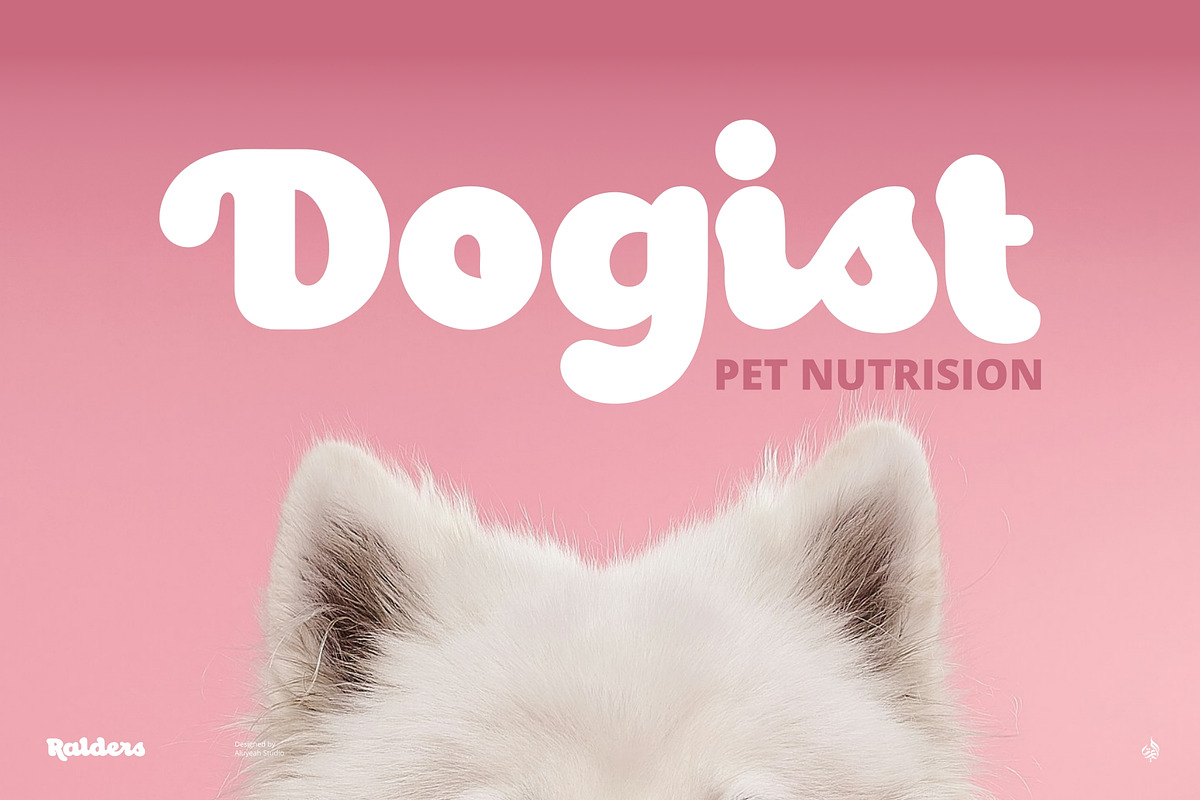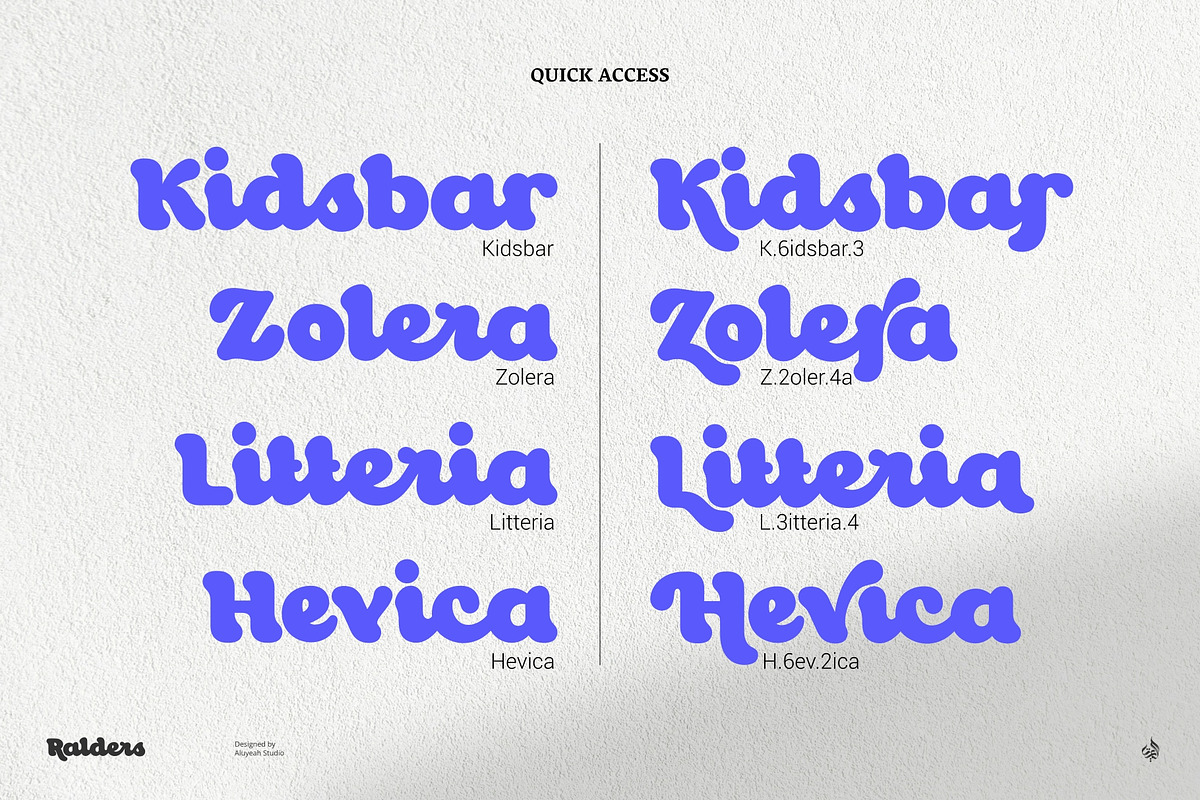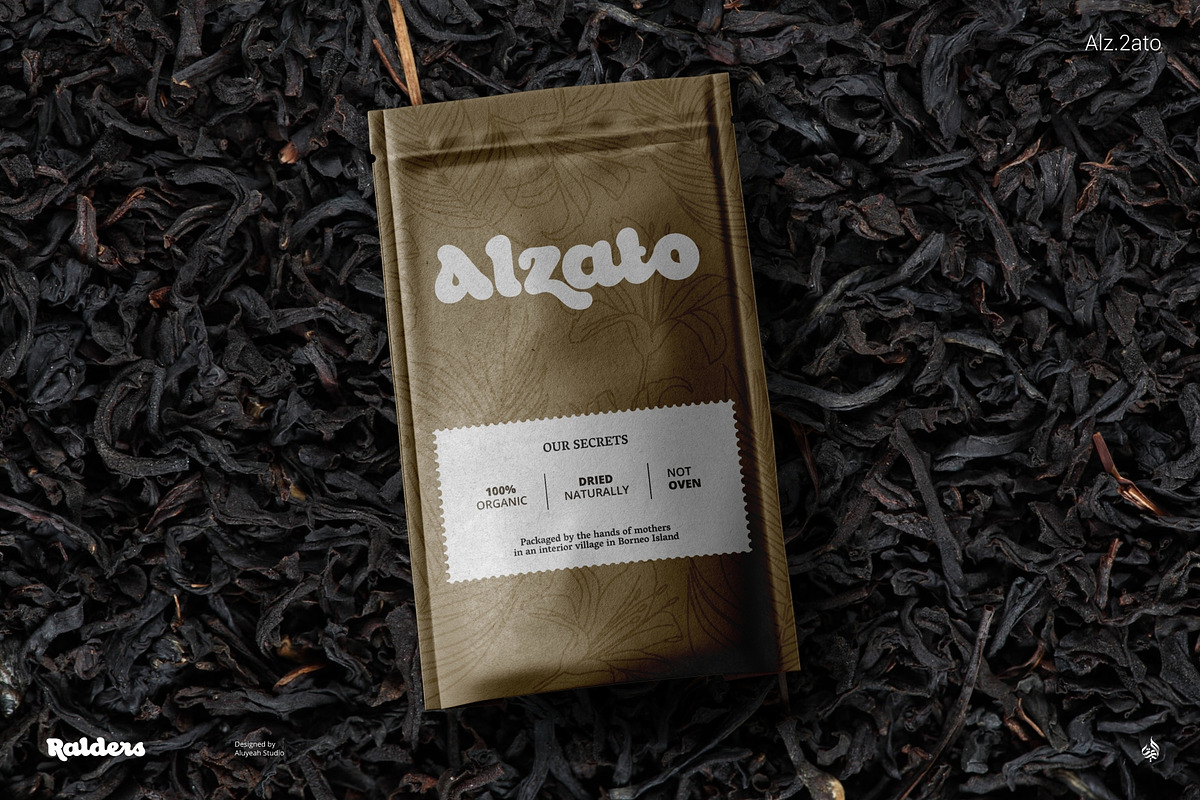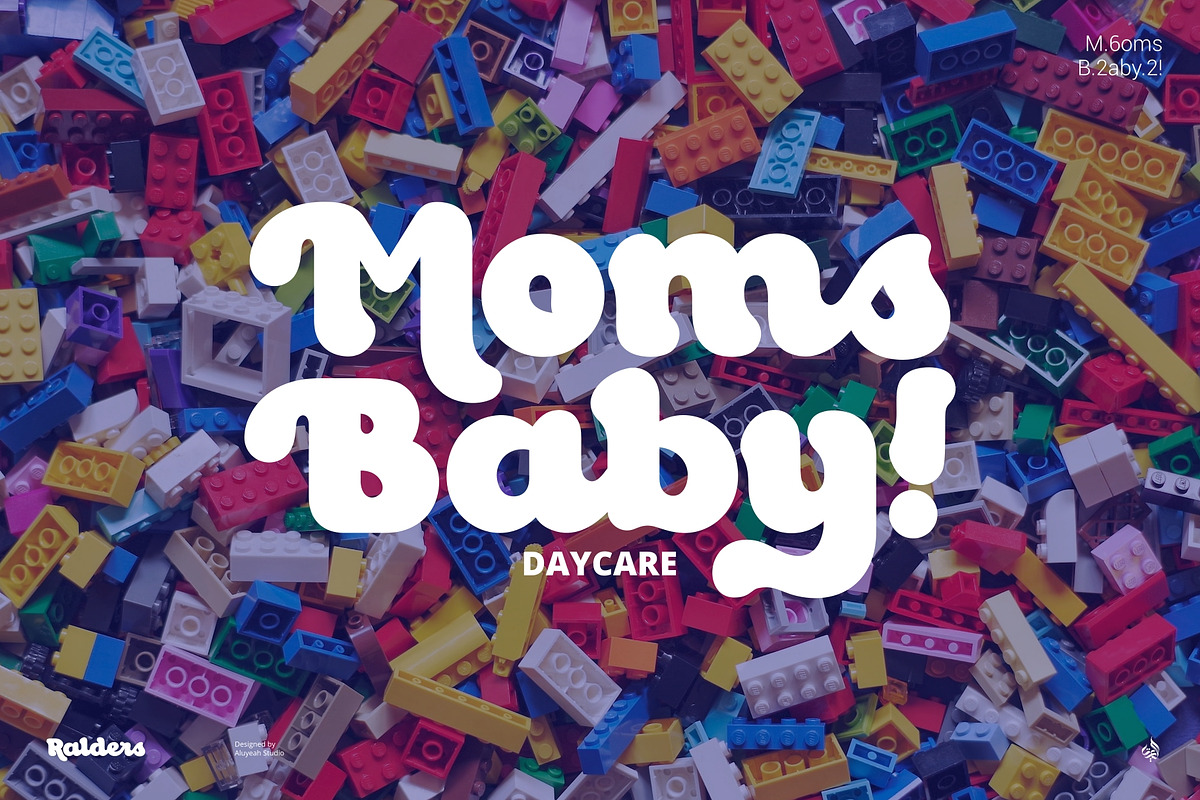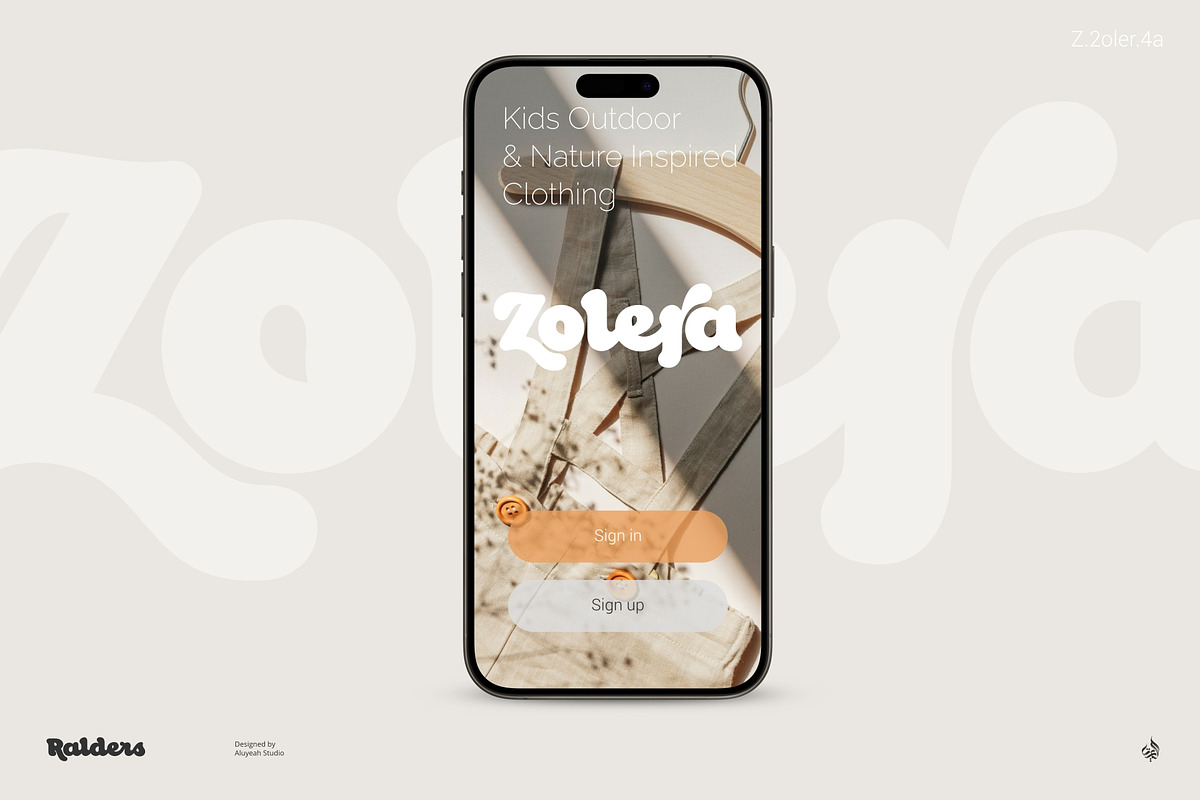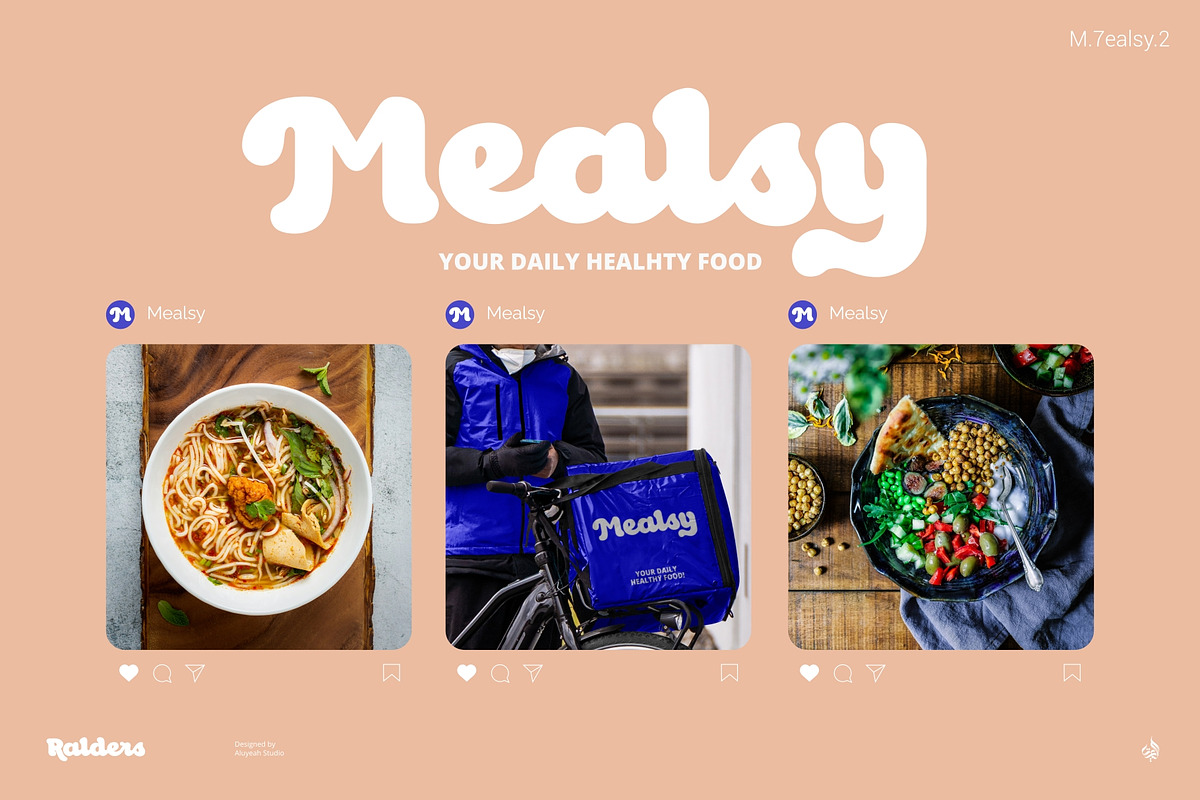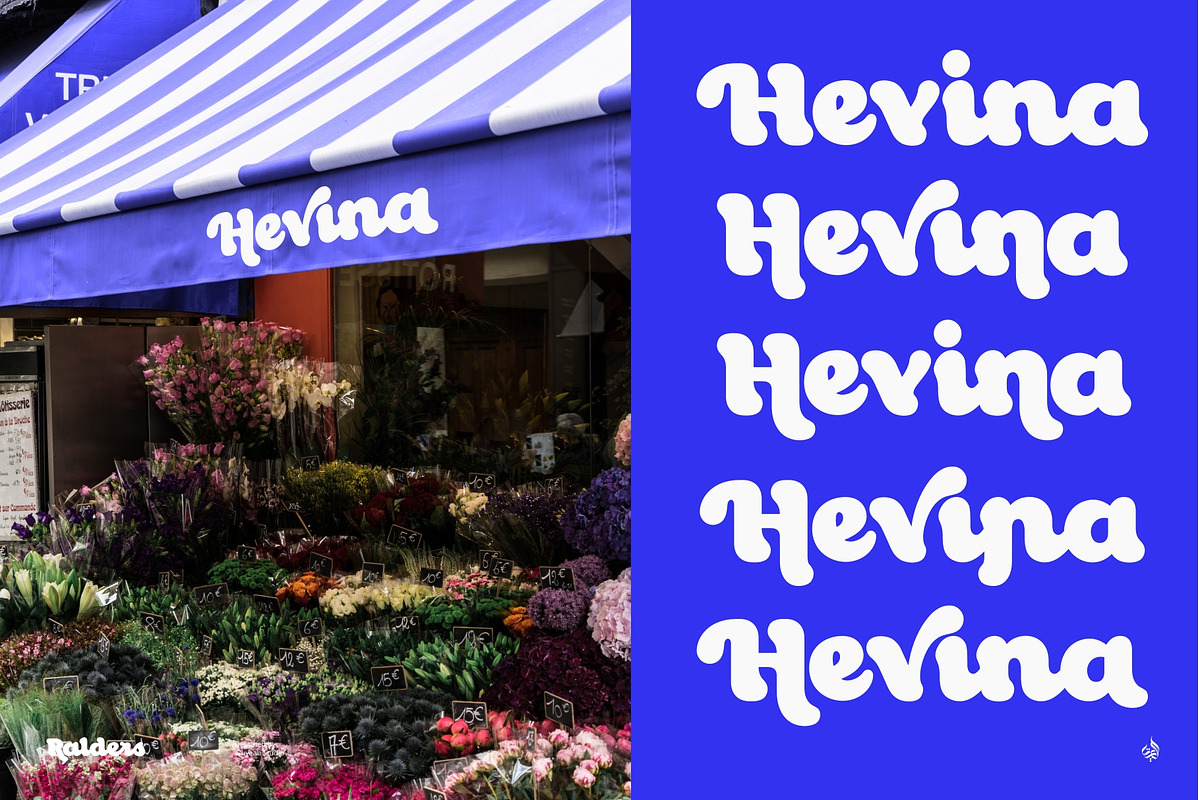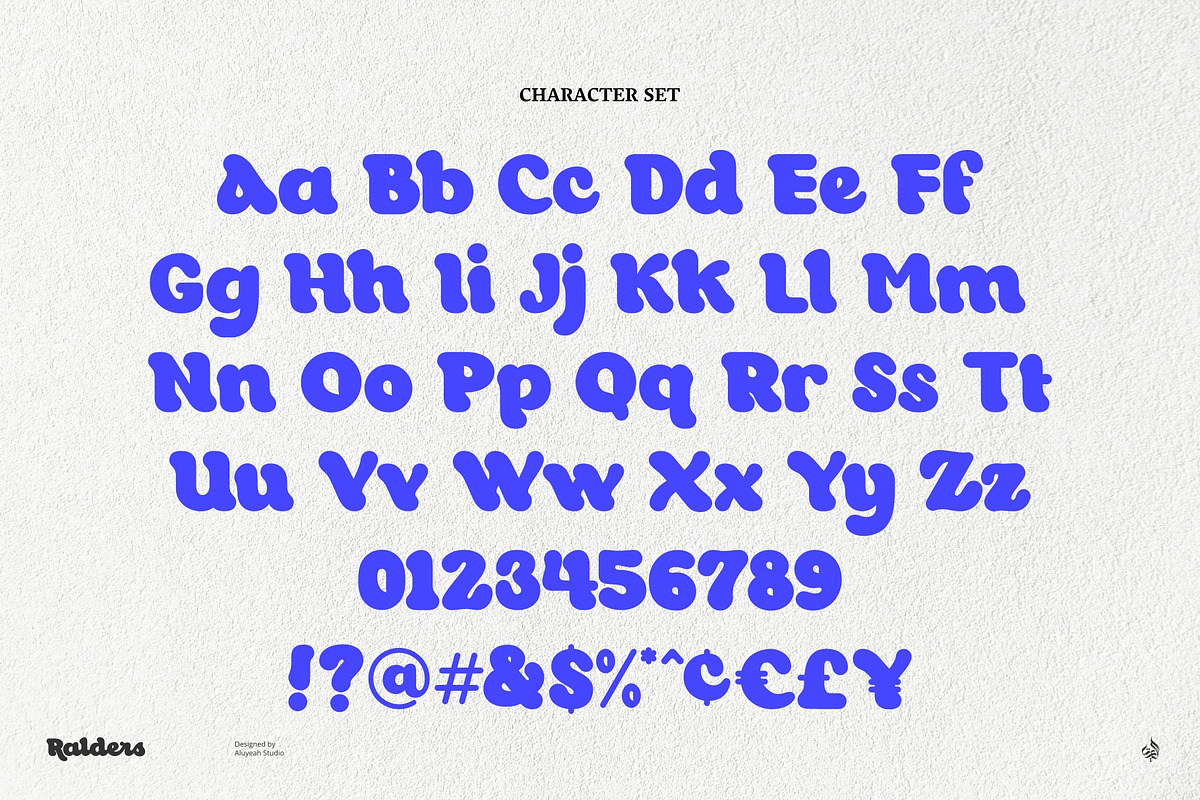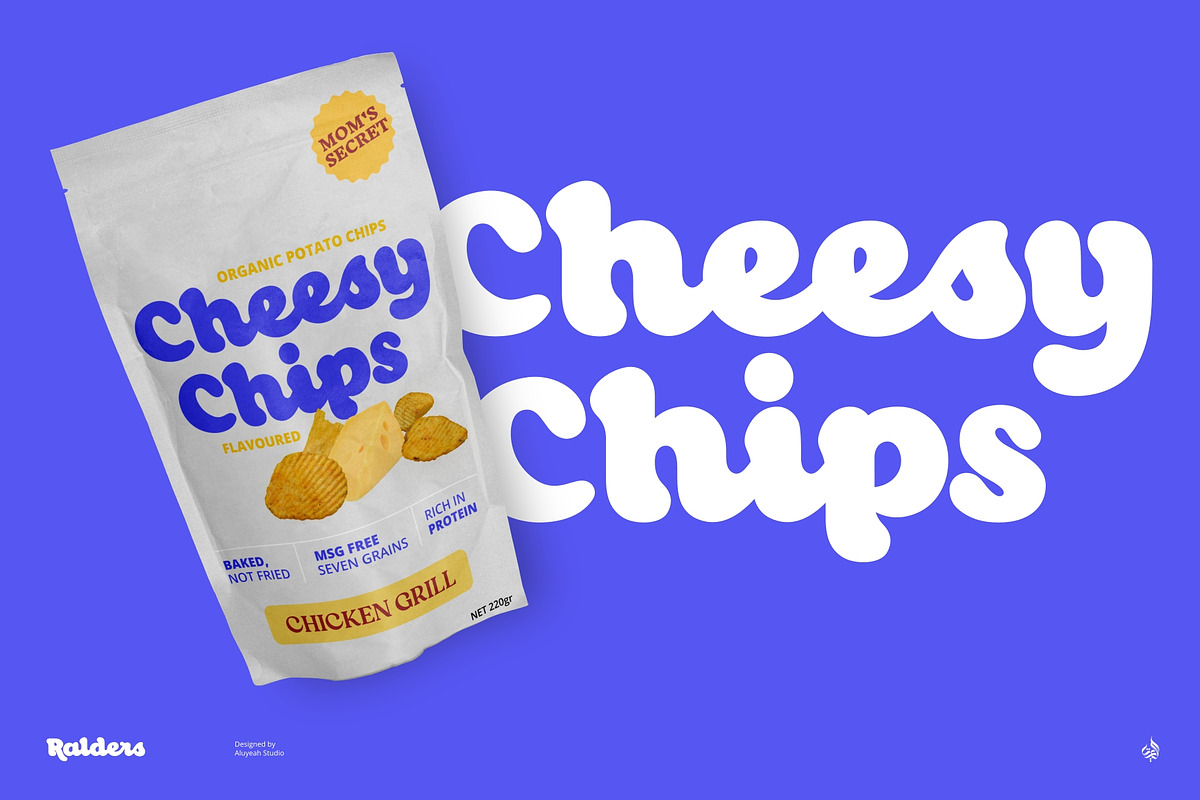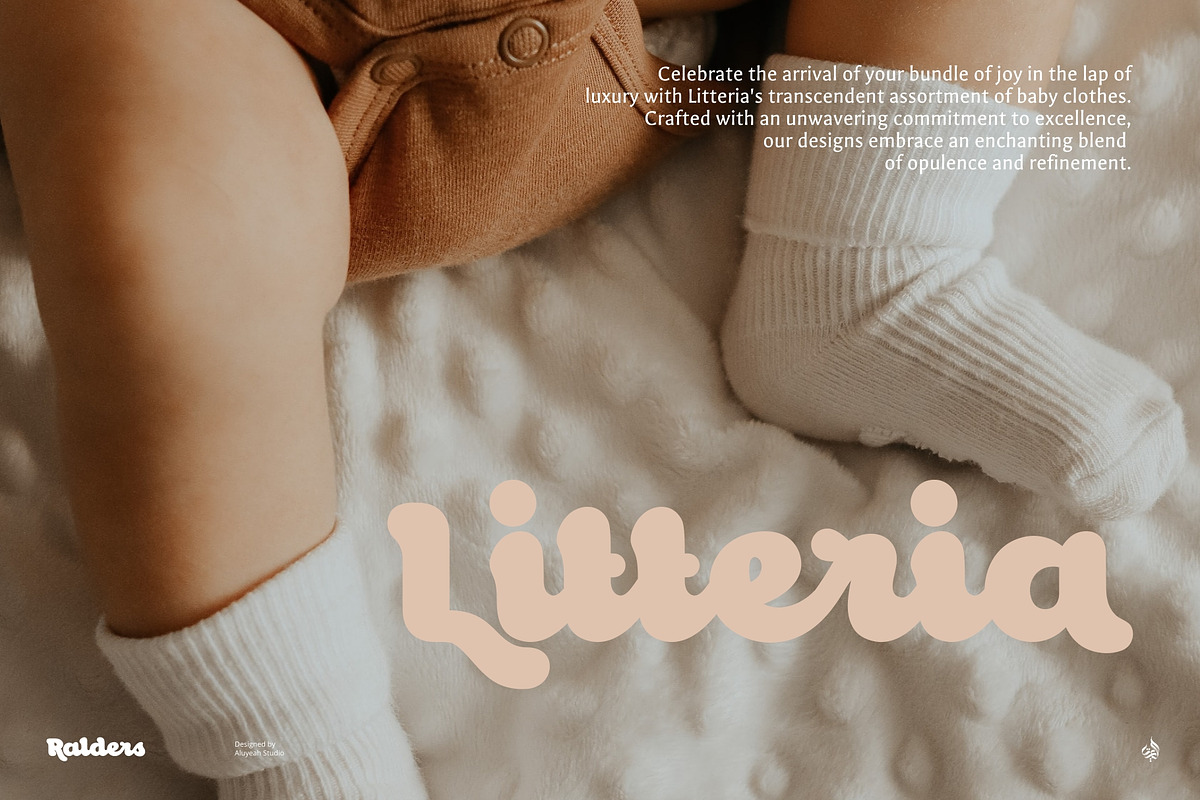
Ralders
Introducing Ralders - a Bold and Playful Semi Cursive Font for Creatives and Beyond!
Unleash your creative side with Ralders - the perfect font for adding a touch of boldness and playfulness to your designs. Ralders will bring your ideas to life with its unique, bold, and eye-catching semi cursive style. Coming with 320+ glyphs and 100+ alternates, you have an extensive range of characters to choose from for exceptional customization. With its friendly, whimsical vibe, this font is perfect for anything from packaging and invitations to logo designs and social media posts. It's time to let your imagination run wild!
- OpenType support
- Multilingual support (67 languages)
- Super Easy to Use alternates - You can easily call alternates using quick access combination like H.5 B.2 a.4 m.6 etc.
To get results like the preview, in the design software you use, select this font then just write R.6alders